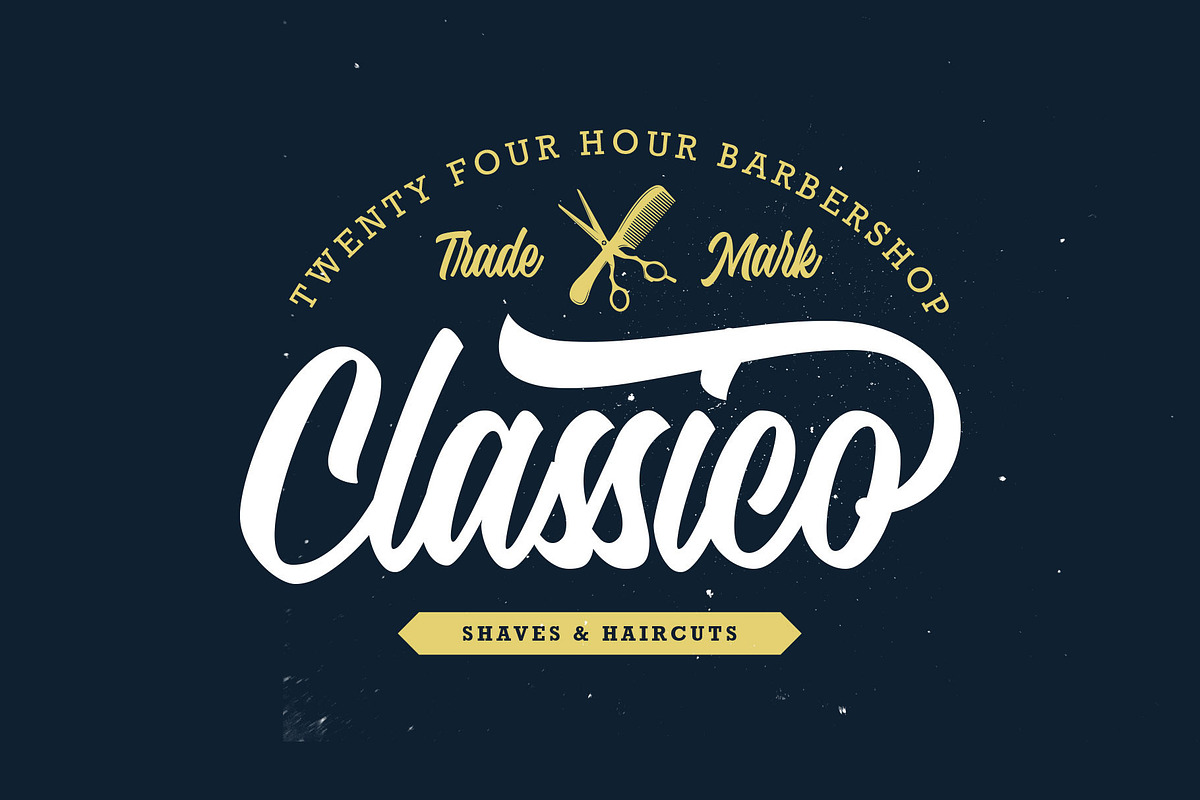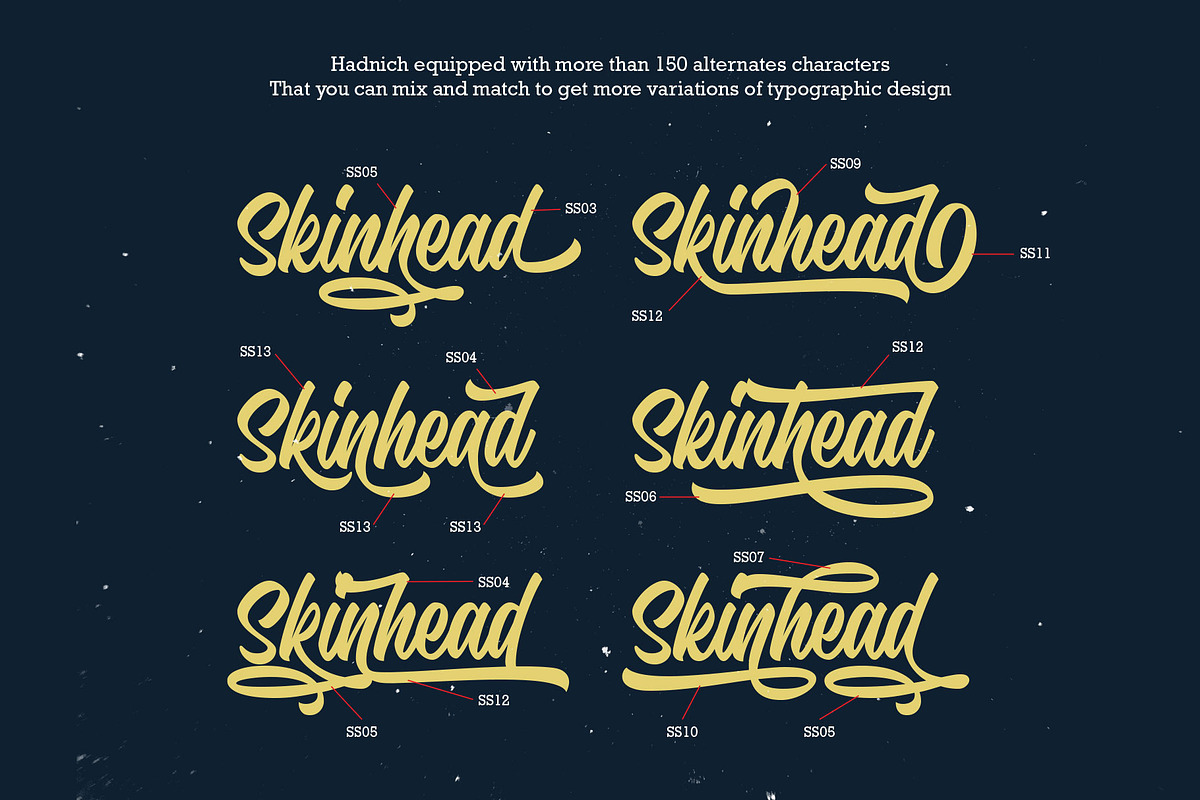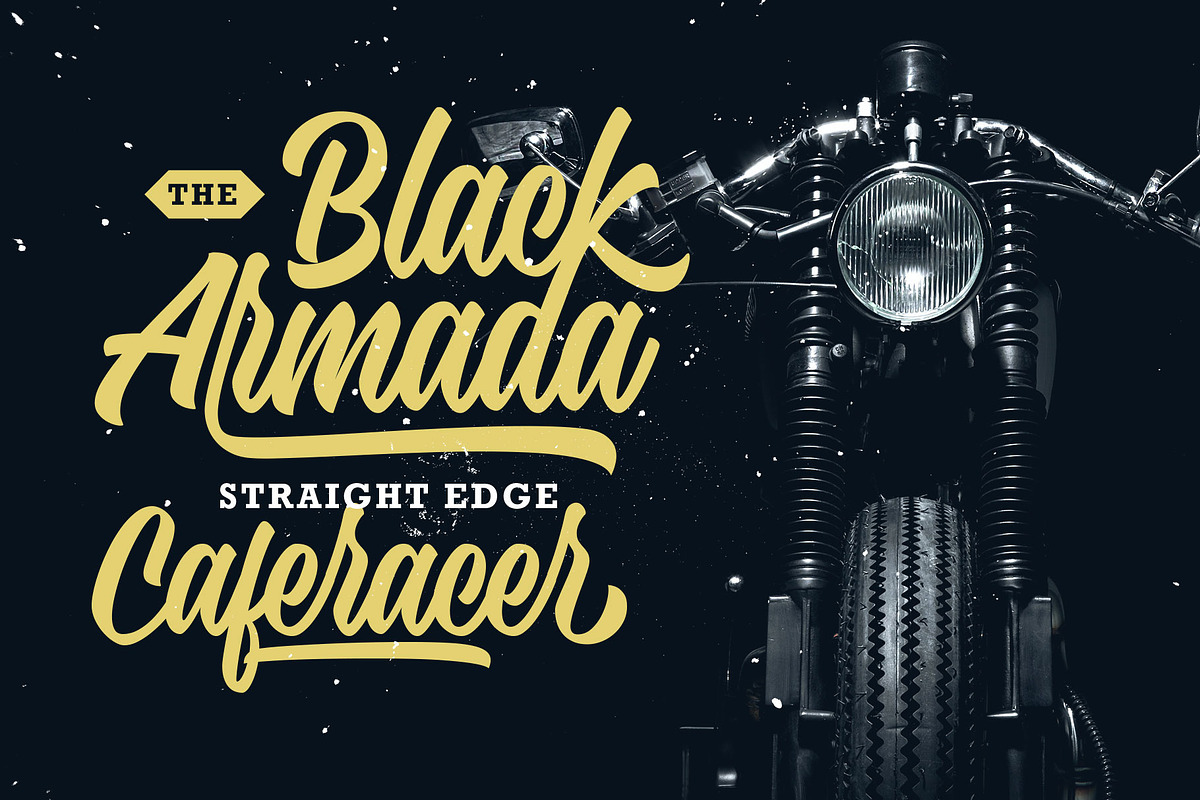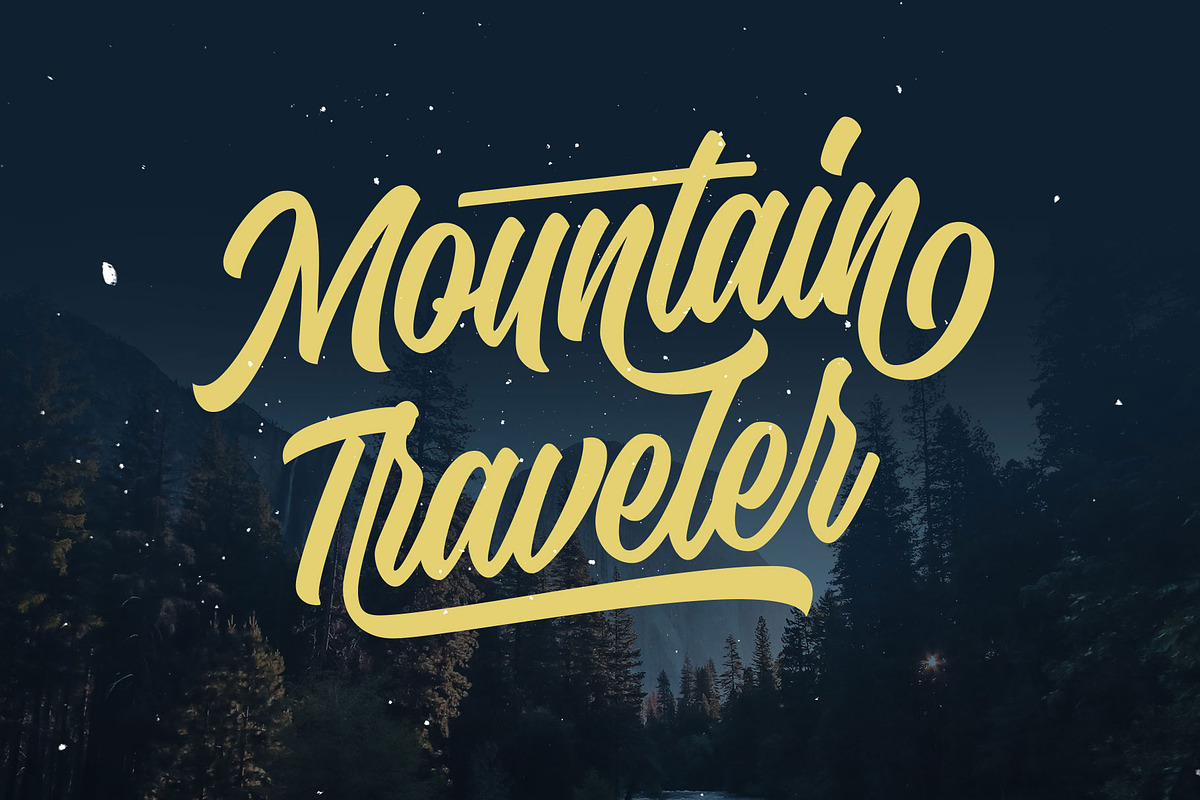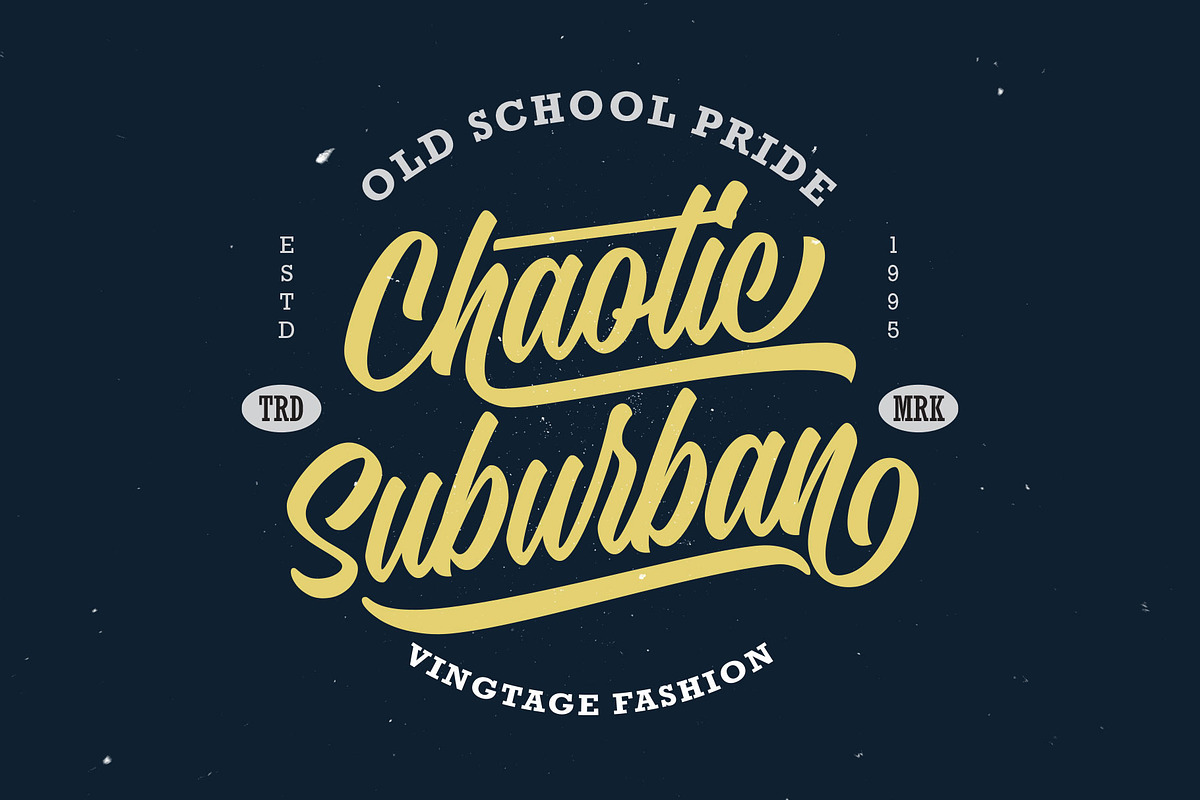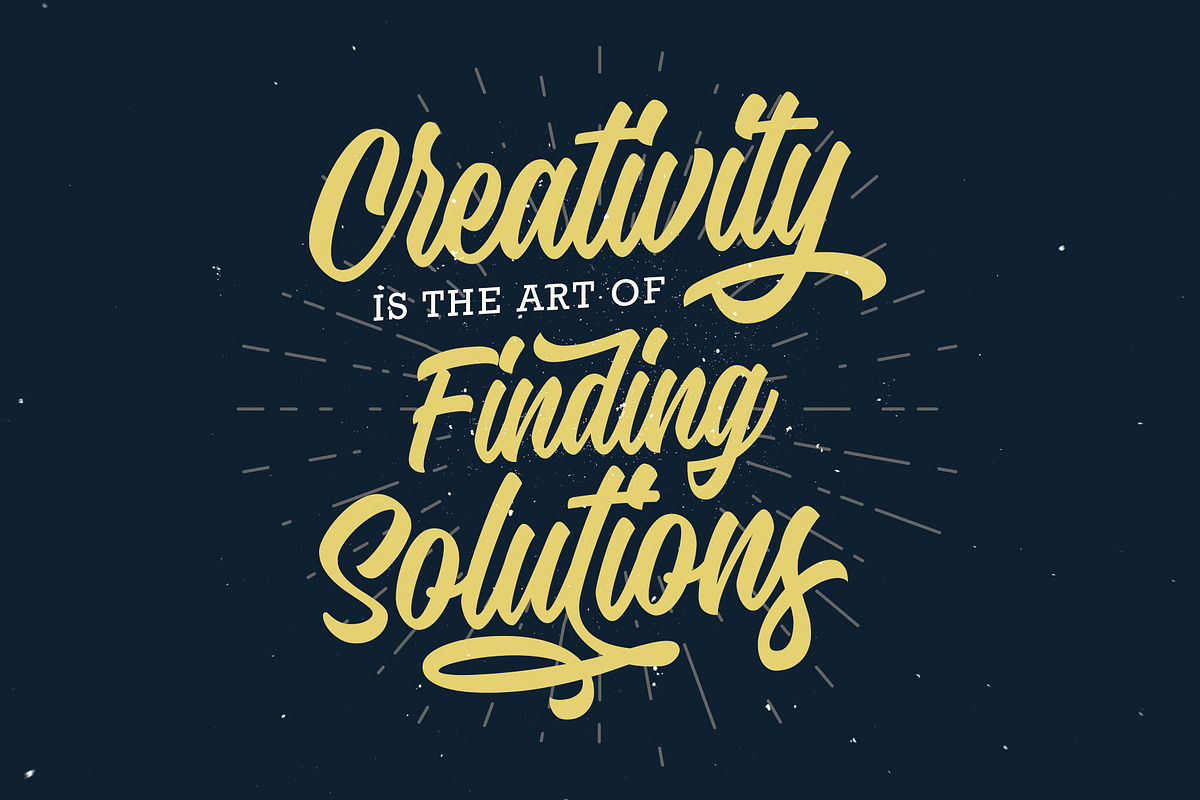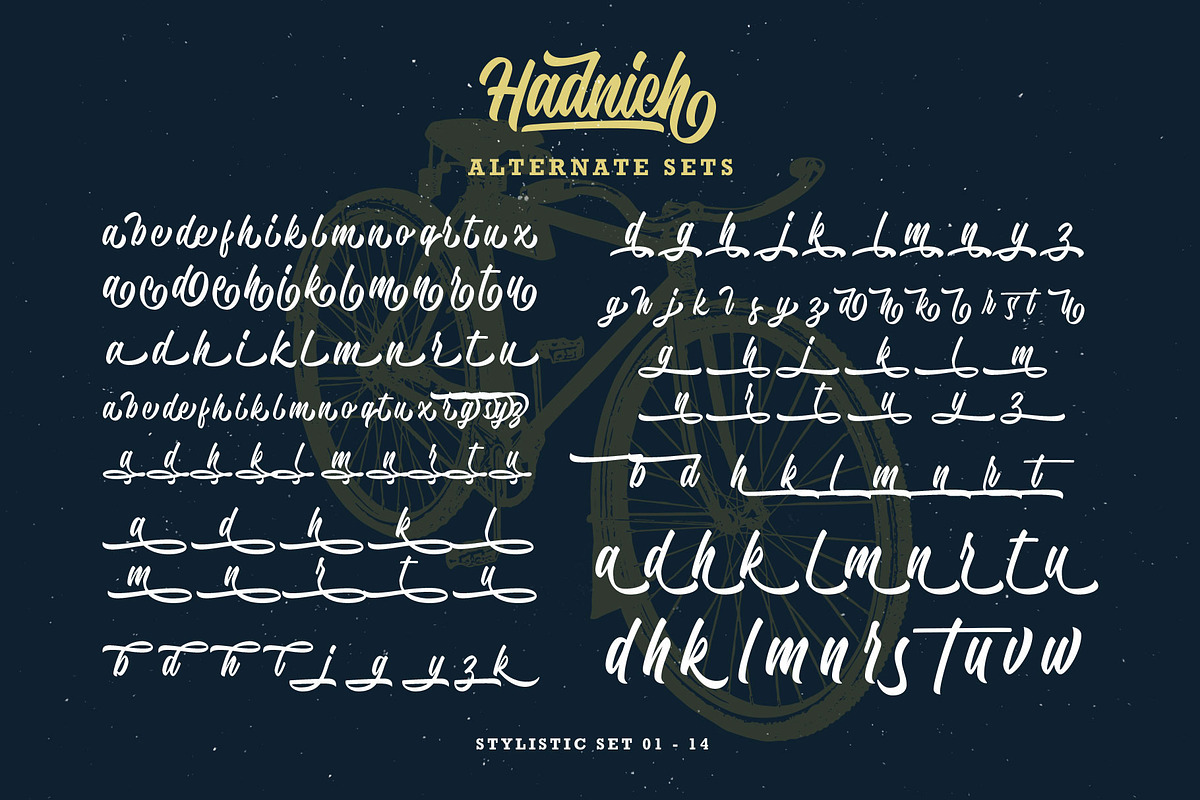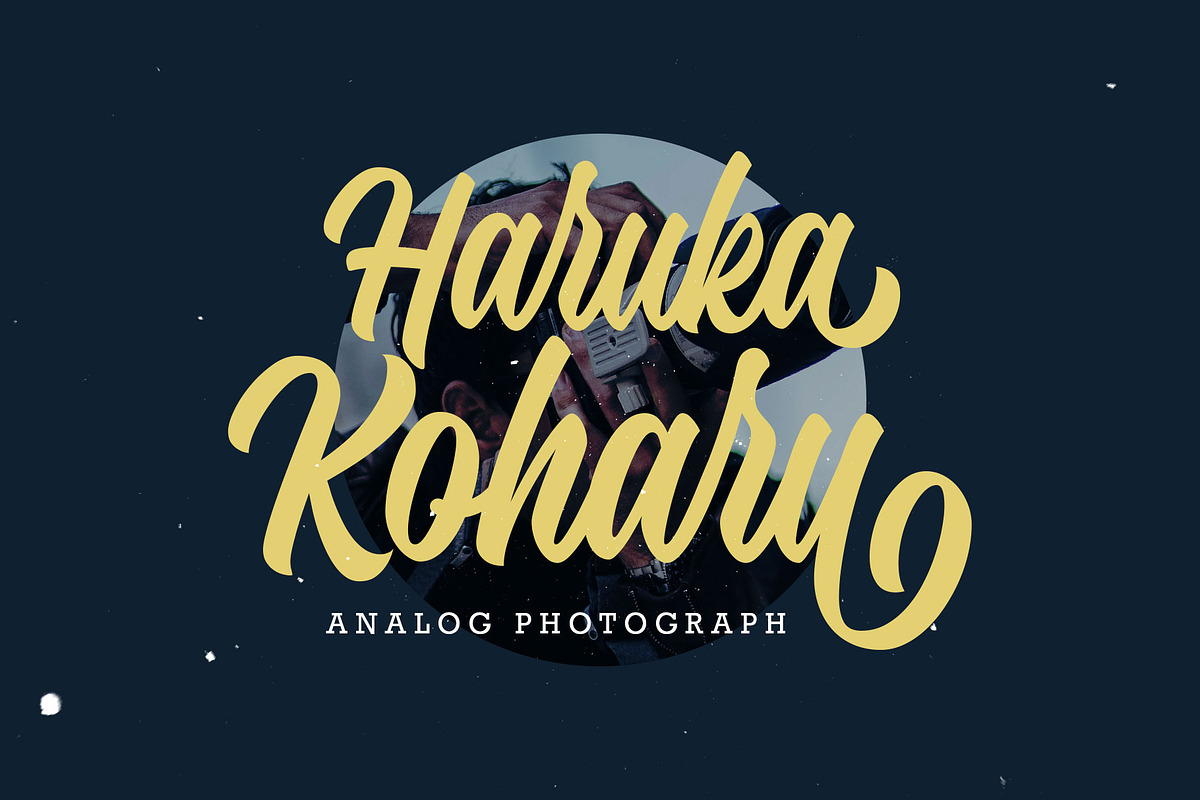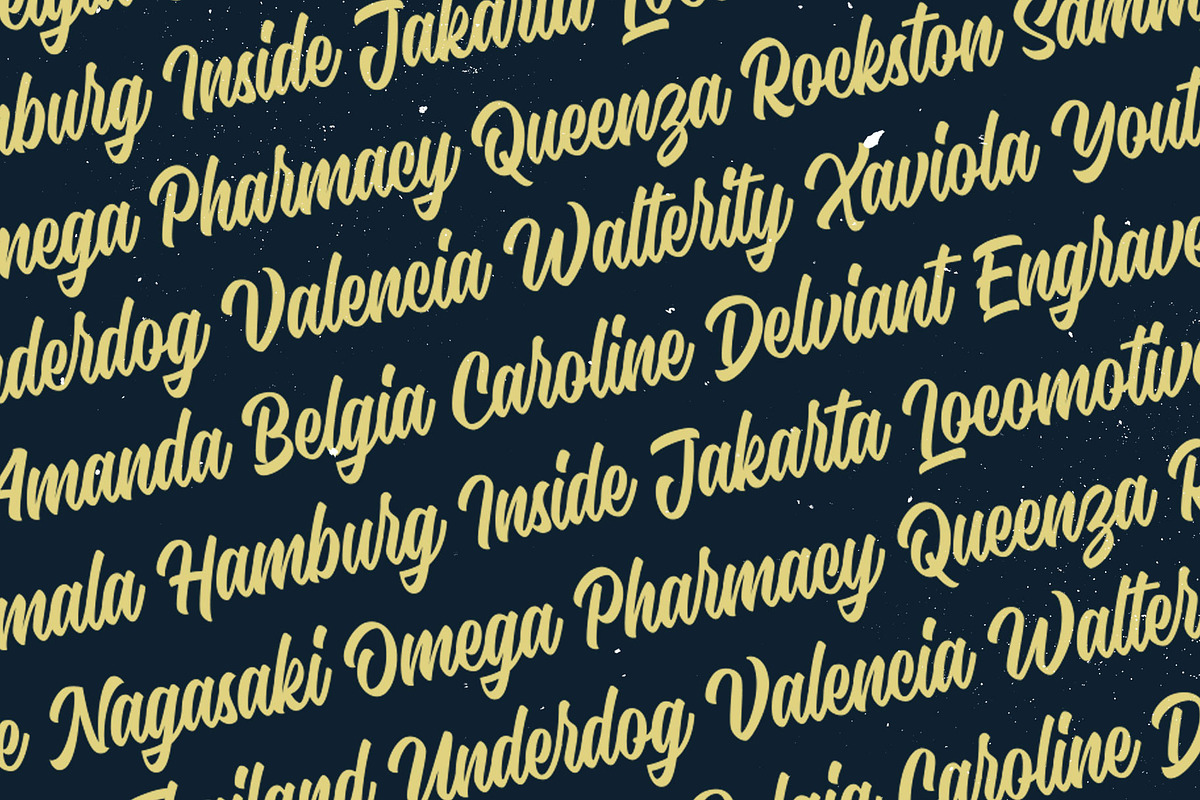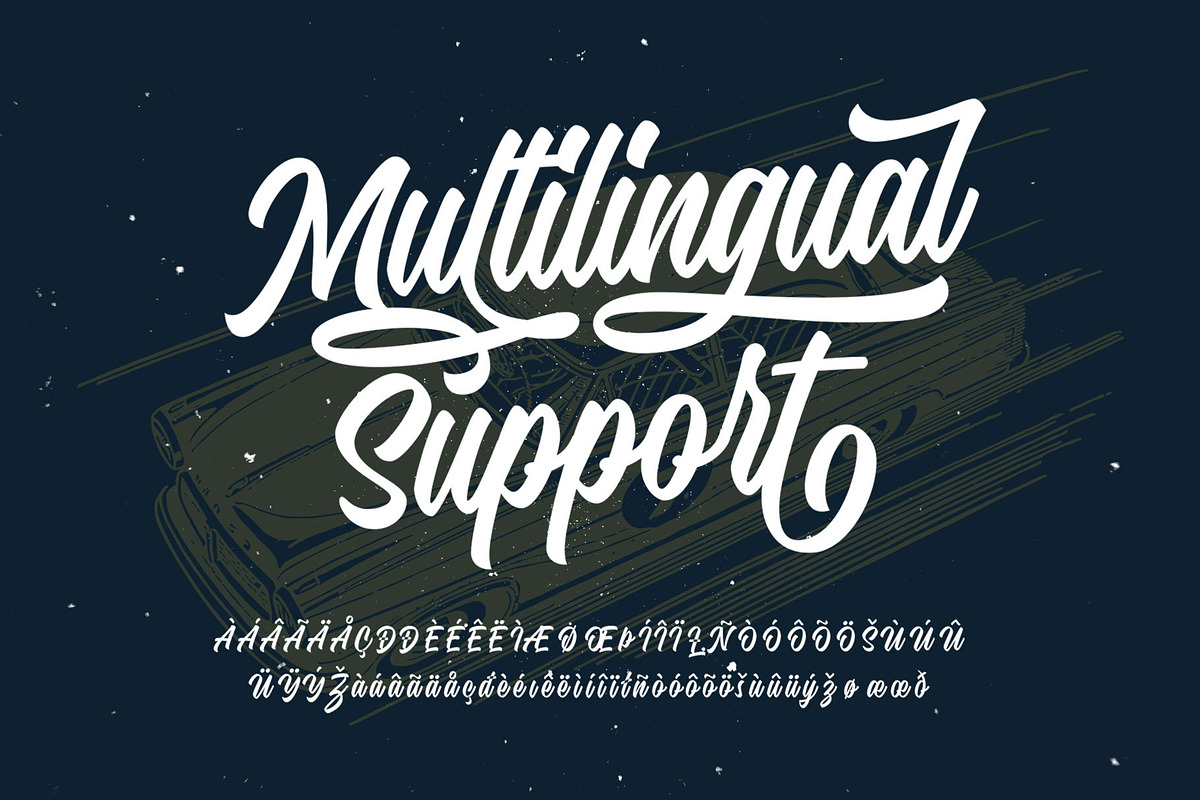
Hadnich - Modern Script
Inspired by the vintage brush typography, we proudly present Hadnich. the versatile script font. Carefully designed with the taste of old school sign painting which has the neat letterforms, attractive move and combined in modern form.
Complete your font library with this cool brush font. Works perfectly for logo, signage, apparel, labels, poster, and many more! Make sure you get more variants of typographic design with a ton of alternates characters that you can access easily!
There are stylistic sets 01-14, ligatures, swashes also accented characters, packed in a total of 350++ glyphs! Worth every penny.